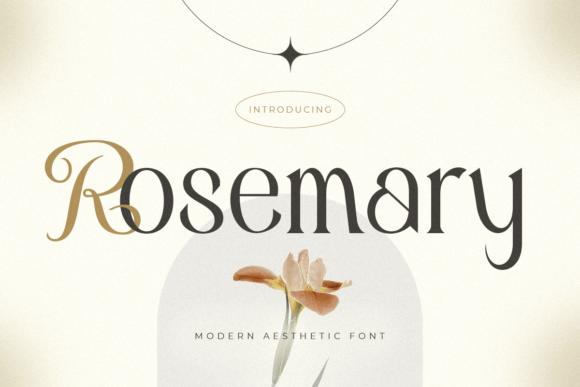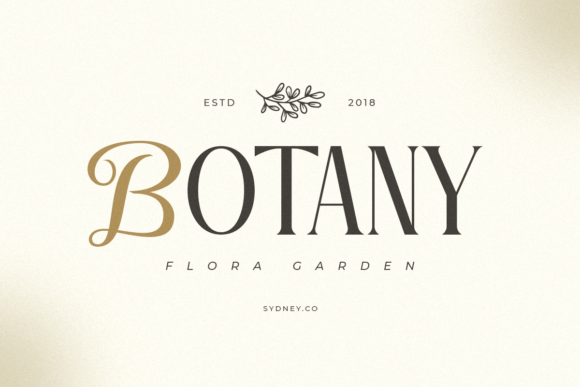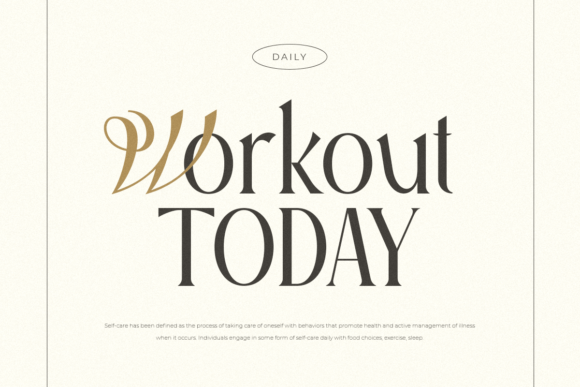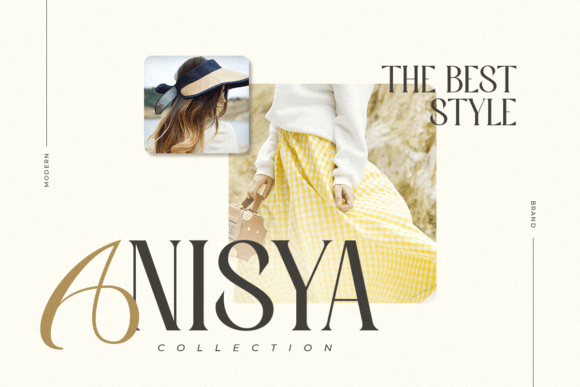
Rosemary Font: Elegant Serif Typography for Luxurious Branding
About the Rosemary Font
We are excited to introduce Rosemary Font, a must-have typeface for any serious designer. Rosemary is a stylish and elegant serif font that embodies sophistication and refinement. Its graceful curves and balanced proportions make it perfect for luxurious branding, high-end editorial layouts, and sophisticated invitations. Elevate your designs with the timeless beauty and class of this exquisite typeface.
Rosemary’s elegant serif forms shine in headlines, logos, and short text blocks within brochures or invitations. It lends itself well to packaging design for luxury goods and high-end products, adding a touch of classic sophistication. However, its refined strokes are less suitable for body text or UI elements where readability over long passages is crucial.
Pairing Rosemary with a clean sans-serif like Montserrat or a geometric sans-serif like Futura creates a strong contrast and modern balance, allowing Rosemary’s elegance to stand out. For a more traditional feel, consider pairing it with a complementary serif such as Garamond or a script font like Great Vibes, though use the latter sparingly to avoid overwhelming the design.
Rosemary projects an air of sophisticated elegance and understated luxury. It is ideal for brands aiming for a timeless and refined aesthetic, conveying quality and prestige.
Rosemary Font Usage Examples
Rosemary Font Example